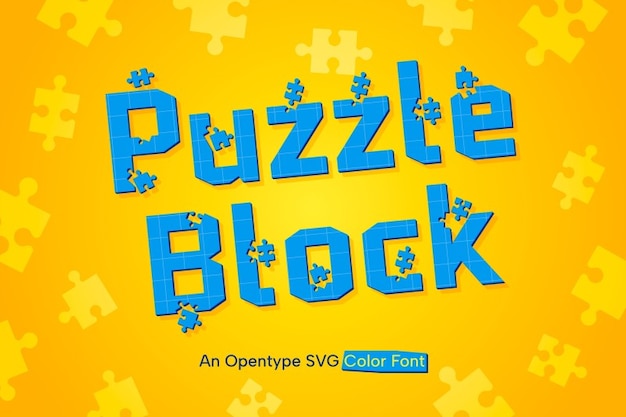
Puzzle Block is a bold, geometrical font inspired by the clean lines of jigsaw puzzles. Each letter is designed with blocky, interlocking shapes, creating a playful and structured feel. Perfect for designs focused on problem-solving or creativity, it brings a modern, puzzle-like aesthetic to projects, ideal for branding, educational materials, and interactive themes.